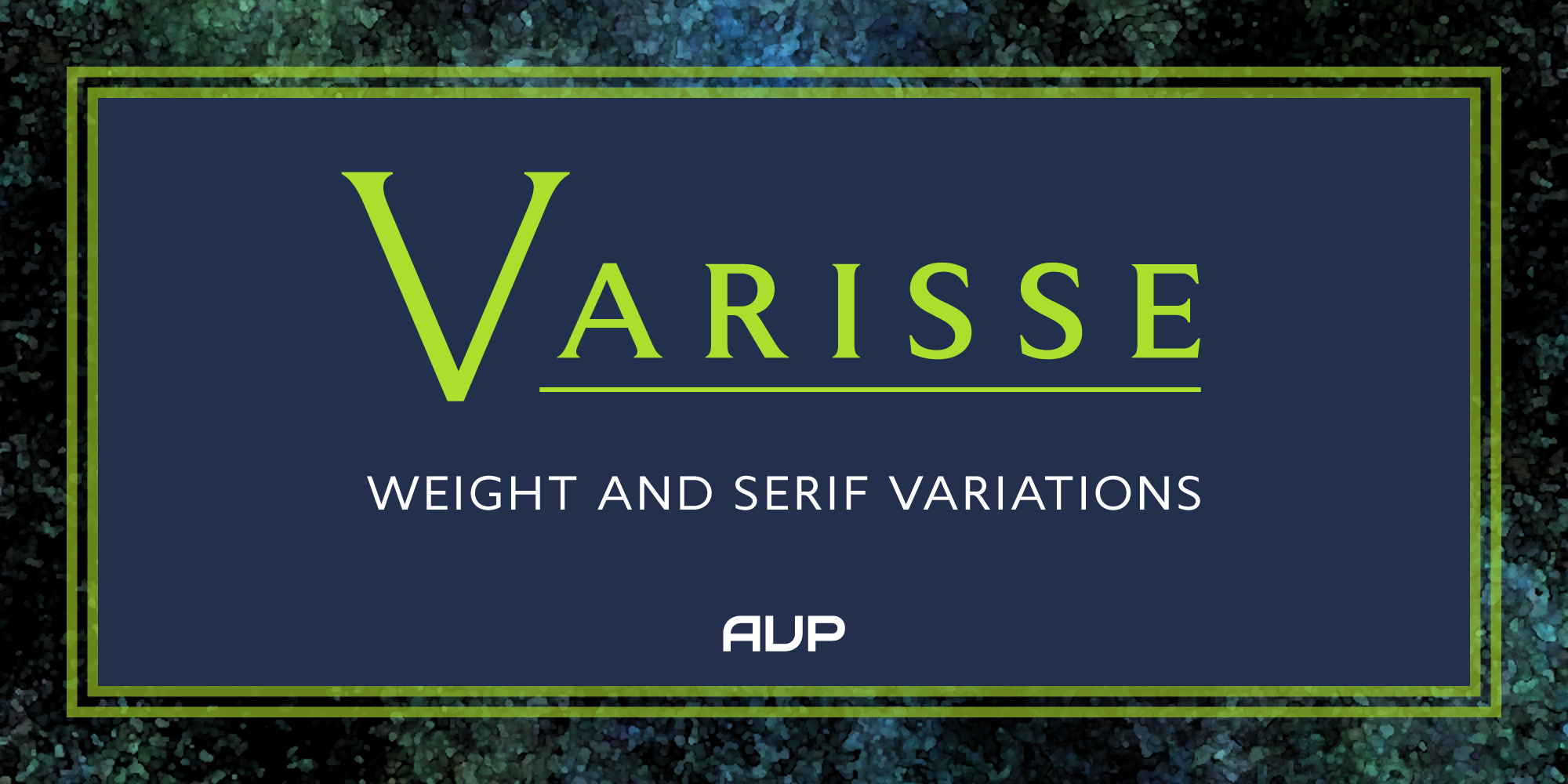
Varisse Font excels in contemporary fashion branding, modern lifestyle magazines, cutting-edge tech interfaces, progressive art gallery displays, avant-garde marketing campaigns, innovative startup logos, sleek product packaging, minimalist web designs, forward-thinking corporate identities, and trendsetting social media graphics. Its progressive character makes it perfect for projects requiring modern sophistication and innovative visual appeal that pushes creative boundaries.
What makes Varisse Font exciting is its revolutionary approach to contemporary typography through meticulously crafted letterforms that embody the essence of modern innovation and progressive design thinking. The font features sleek geometric elements with dynamic proportions that capture the spirit of technological advancement while maintaining exceptional readability for digital applications. Its progressive character transforms ordinary text into statements of innovation that resonate with forward-thinking audiences seeking cutting-edge solutions.
The Varisse Font family includes Regular, Bold, Light, Modern, Tech, Innovation, and Progressive variations. Each style preserves the font's contemporary essence while offering different levels of technological sophistication and modern weight for creating authentic forward-thinking graphics. The comprehensive character set includes modern symbols, tech ornaments, innovative decorations, and progressive glyphs essential for genuine contemporary and technology typography projects.
Tech companies and modern brands consistently choose Varisse Font Free Download for projects demanding sophisticated contemporary typography solutions. The font's progressive character instantly establishes innovation credibility while ensuring clear communication across modern marketing channels. Its versatility spans from subtle contemporary touches to bold statements that celebrate the transformative power of technology and the endless possibilities of modern design innovation.
Whether you're developing tech brand identities, creating modern marketing materials, or designing progressive communications, Varisse Font provides the perfect combination of contemporary authenticity and futuristic functionality. The font's innovatively crafted letterforms ensure genuine modern character while maintaining excellent performance across various technological applications and progressive business communications.
The innovative heritage of Varisse Font makes it exceptional for creating forward-thinking connections with audiences who embrace change and appreciate cutting-edge design. Its contemporary precision and progressive appeal work seamlessly across traditional modern materials and revolutionary digital platforms. The font performs brilliantly in both large-scale tech displays and intimate innovative communications.
Innovate with purpose using Varisse Font and discover how authentic contemporary typography can enhance your modern projects with genuine progressive appeal and technological sophistication. This remarkable typeface combines innovation tradition with futuristic functionality, making it indispensable for brands seeking to establish leadership in rapidly evolving markets and celebrate the boundless potential of modern design.